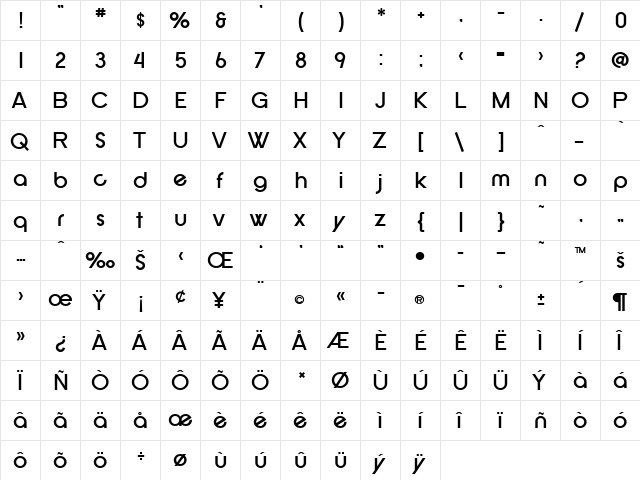
SF New Republic Bold
Design Context for SF New Republic Typeface
SF New Republic offers clean, dependable letterforms without strong stylistic allegiance, making it a practical choice for designers who need flexibility. The heavy weight commands attention and anchors typographic hierarchies.